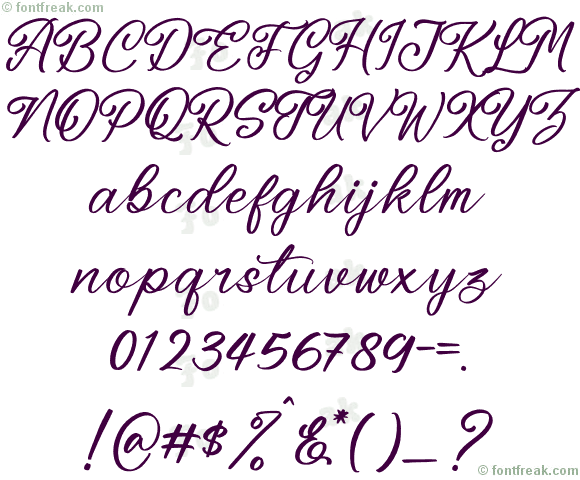
Washington Delmonte
About Washington Delmonte
Washington Delmonte, created by Perspectype Studio in 2021, is a captivating script font that exudes elegance and sophistication. As a decorative typeface, it features smooth, flowing lines and a refined aesthetic that captures the essence of modern calligraphy. The strokes display a balanced weight, with delicate contrasts that enhance its visual appeal, while generous spacing allows for clear legibility. The font's decorative elements include graceful curls and swashes, making it perfect for adding a touch of artistry to any design project.
This font is an excellent choice for a variety of creative applications. It shines in wedding invitations, where its romantic style can set the tone for a memorable celebration. Additionally, Washington Delmonte works beautifully on restaurant menus, providing a touch of class that can elevate the dining experience. It is also well-suited for event flyers, helping to convey a festive atmosphere, and can be used effectively in branding materials for boutique businesses looking to create a distinctive identity. The font appeals to graphic designers, small business owners, and content creators who seek to make a lasting impression through their visual communications.
What sets the Washington Delmonte font apart is its unique combination of elegance and versatility. It stands out not just for its aesthetic charm, but also for its ability to adapt to a wide range of design contexts. The Washington Delmonte font free download offers an accessible opportunity for creatives to enhance their projects with a sophisticated touch. Whether you are crafting promotional materials or personal invitations, this font will undoubtedly elevate your designs and leave a lasting impact on your audience.